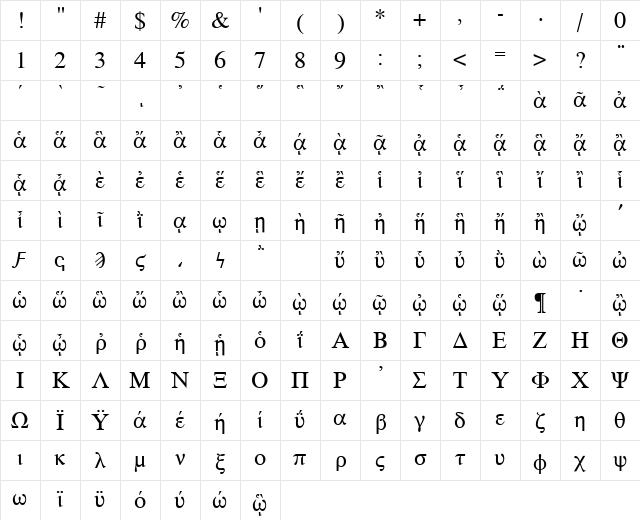
GreekTimesAncientSSK Regular
Complete GreekTimesAncientSSK Regular glyph index. Displaying only characters natively supported by GreekTimesAncientSSK Regular font.
Design Context for GreekTimesAncientSSK
GreekTimesAncientSSK is a composed and adaptable typeface that performs quietly and consistently across a wide range of design contexts.